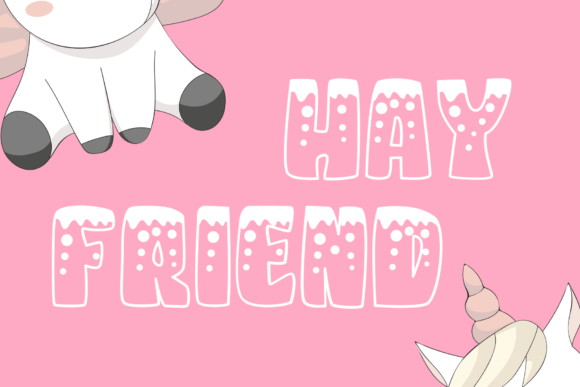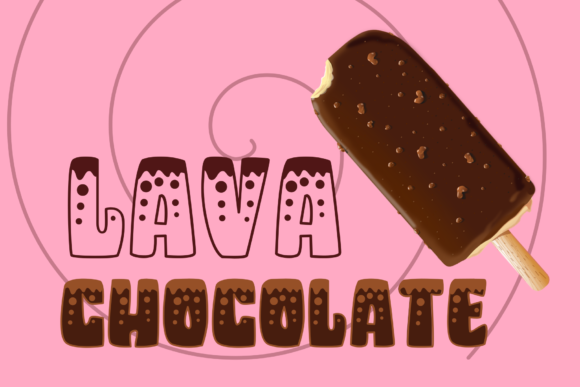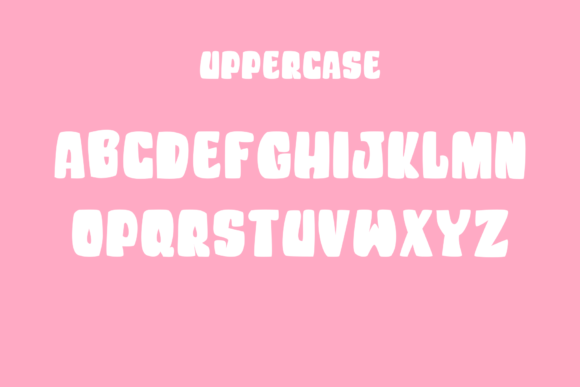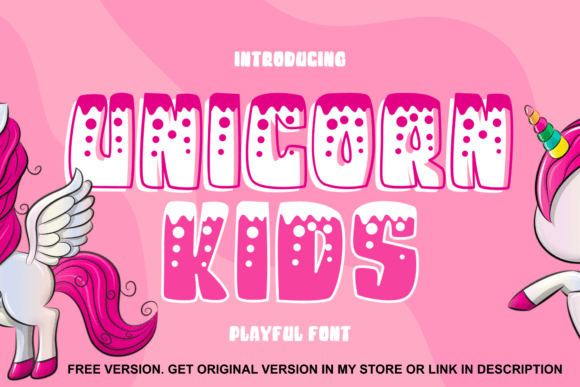
About Unicorn Kids Font
Unicorn Kids is a sweet and friendly display font. It embodies playfulness and authenticity and is the perfect choice for any children activity or school project. Add this chunky lettered font to your designs and notice how it makes them come alive!